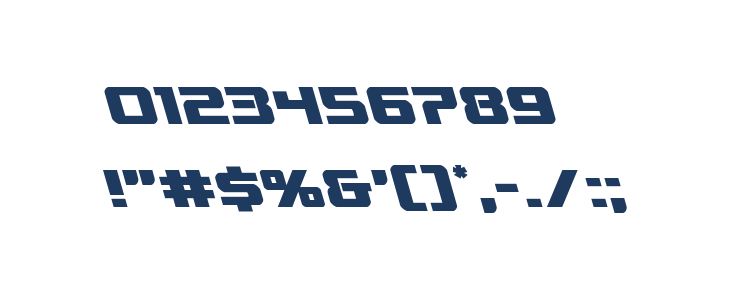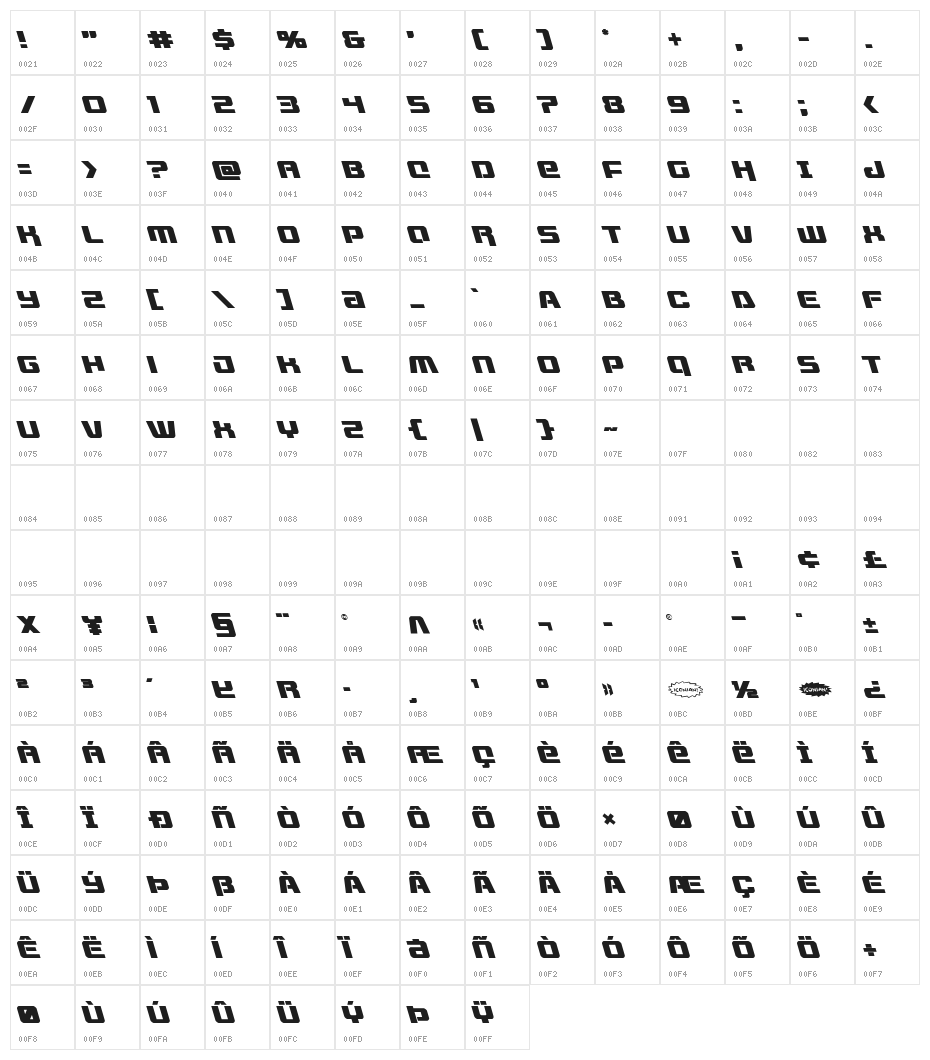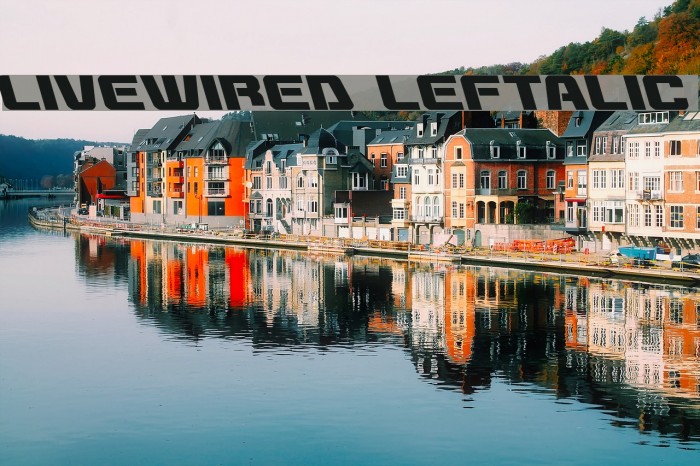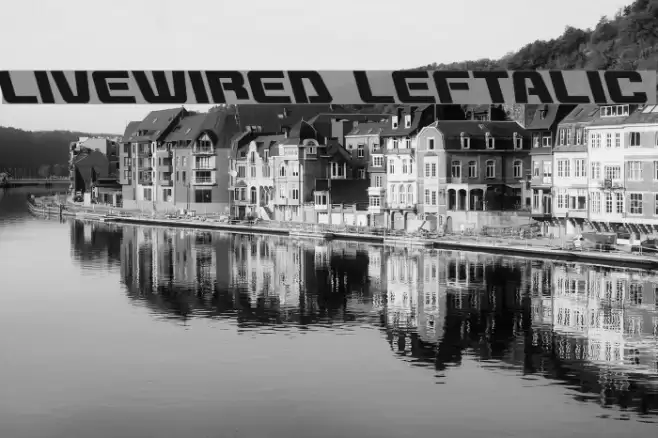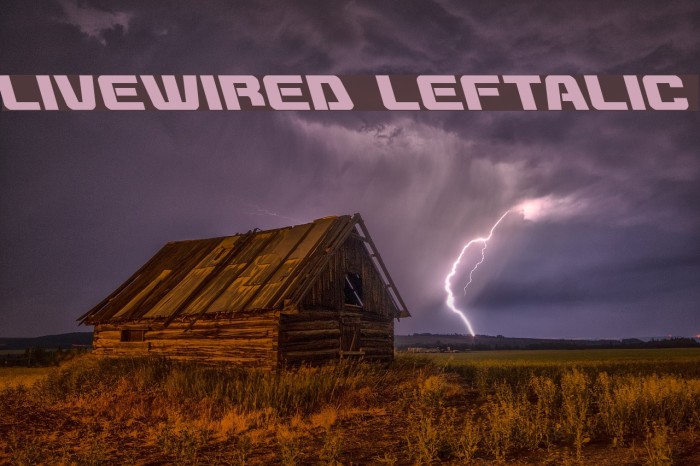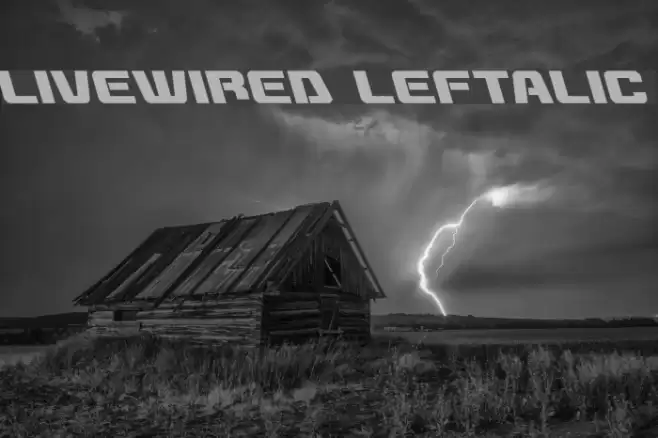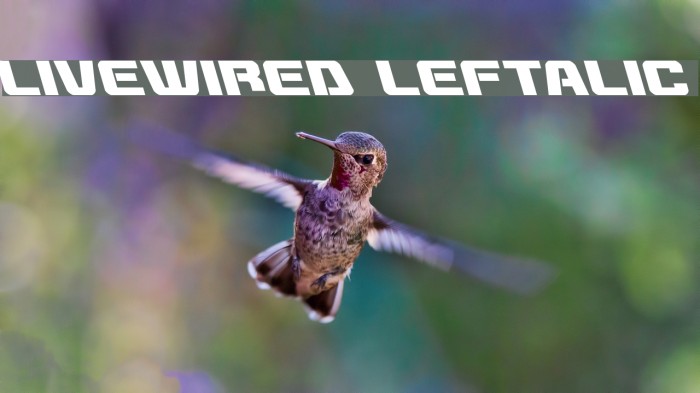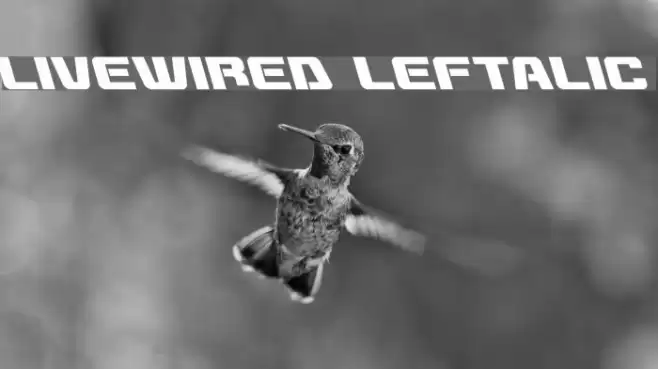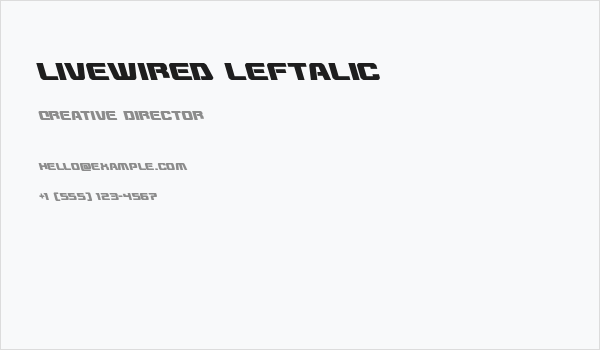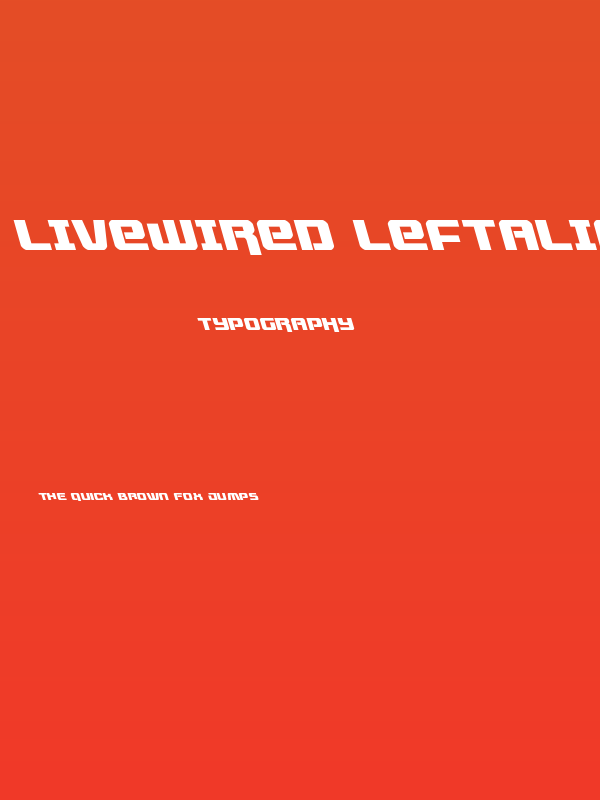
Livewired Leftalic Font
Livewired Leftalic Description
This font features a bold and futuristic design with a distinct slant, giving it a dynamic and forward-moving appearance. The characters are blocky and geometric, with sharp angles and a consistent thickness throughout. The uppercase and lowercase letters maintain a uniform style, while the numbers and special characters complement the overall aesthetic. The font's strong presence and unique style make it suitable for projects that require a modern and edgy look.
| Proposed Projects | Ideal for technology branding, video game titles, sci-fi posters, and modern advertising campaigns. |